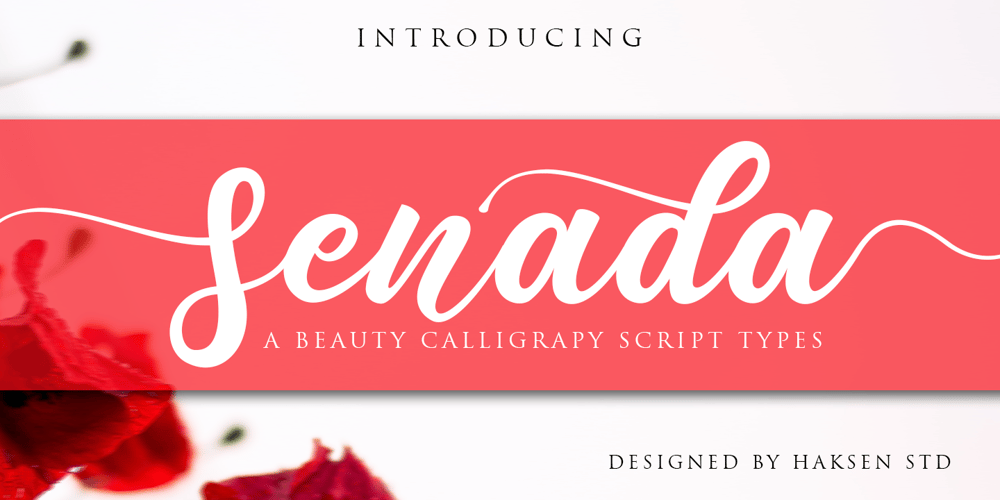
Senada Font Family was designed by Sarwo Edhi Prayitno and published by Haksen. Senada contains 1 styles and family package options. Senada is a lovely bouncy script font with a natural & stylish flow. Perfect for making elegant stylish statements – or adding a touch of class to your designs. This script has a multitude of lovely alternates character in its OpenType features – making the font look a beautifulSenada is perfect for many different projects such as logos & branding, invitation, stationery, wedding designs, social media posts, advertisements, product packaging, product designs, label, photography, watermark, special events or anything.What you get: Senada includes capital and lowercase letters, alternates, and Ligatures Numbers + punctuation Foreign language support I highly recommend using a program that supports OpenType features and Glyphs panels such as Adobe Illustrator, Adobe Photoshop CC, Adobe InDesign, or CorelDraw, so you can see and access all Glyph variations.Senada is encoded with Unicode PUA, which allows full access to all additional characters without having special design software. Mac users can use Font Book, and Windows users can use Character Map to view and copy one of the extra characters to paste into your favorite text editor/application.I hope you enjoy the font, please feel free to comment if you have any thoughts or feedback.Or simply send me a PM or email me.